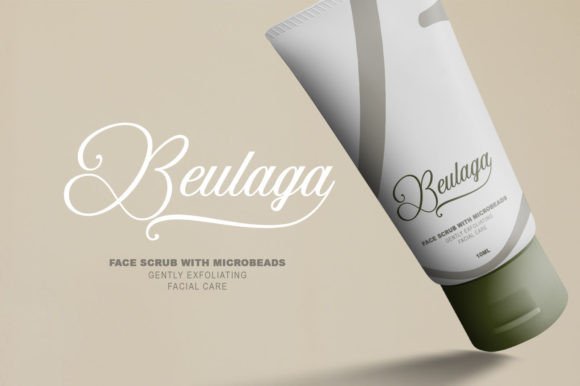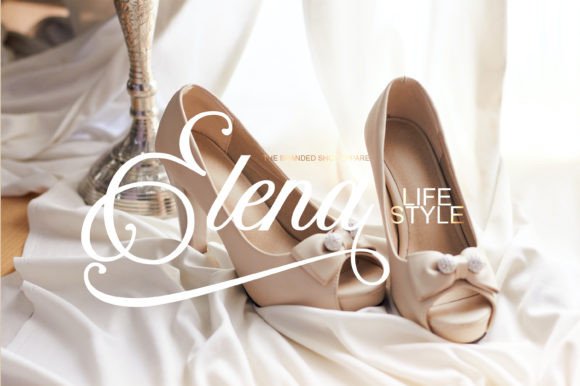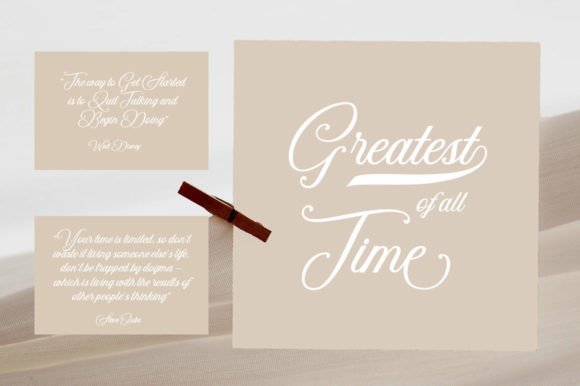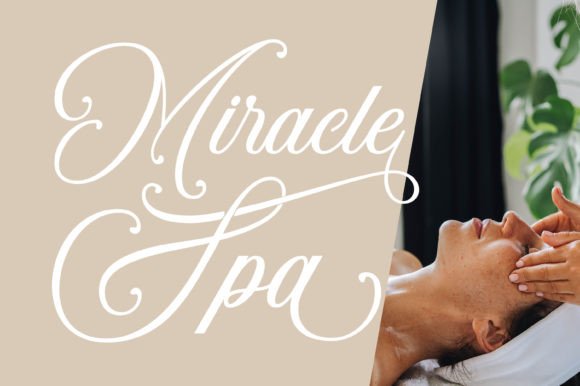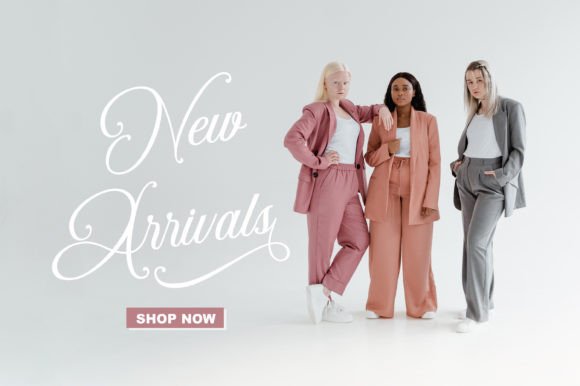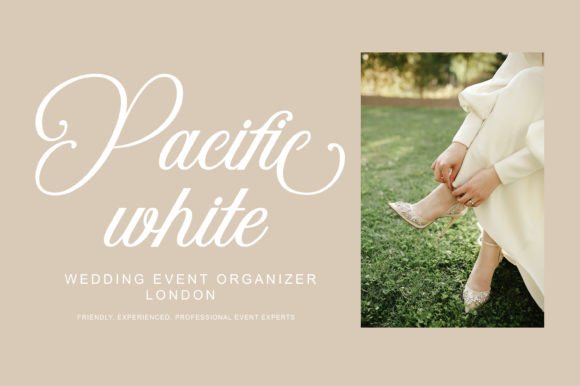
Introduction to Lusail Font
Try playing with the Lusail Font, enjoy the rich features of OpenType, and let its fun and elegant delight make you happy and boost your creativity.
This font is also perfect for elegant logos, wedding stationery, modern websites, and more Fall in love with this font, and bring your projects to the highest levels.
Key Features of Lusail Font
Why Choose Lusail Font?
Lusail Font offers exceptional quality and versatility, making it a valuable addition to your design toolkit. Whether you’re creating for personal projects or commercial use, Lusail Font delivers professional results.